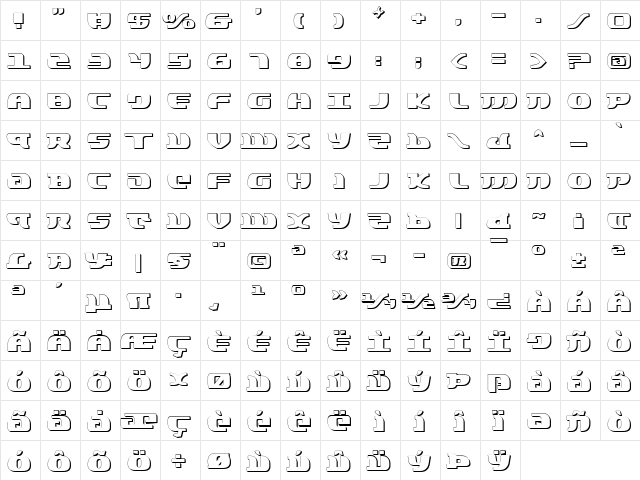
Lord of the Sith Shadow Shadow
Design Context for Lord of the Sith Shadow Typeface
Lord of the Sith Shadow is built around its visual character rather than neutral utility — its distinctive forms are designed to make an impression at display sizes.
Font Pairing: Pair with a clean neutral sans-serif for body copy to let Lord of the Sith Shadow's character lead without overwhelming the composition.
Pro Tip: Treat Lord of the Sith Shadow as the centrepiece of your typographic hierarchy. One strong heading set in a decorative face can carry an entire layout.